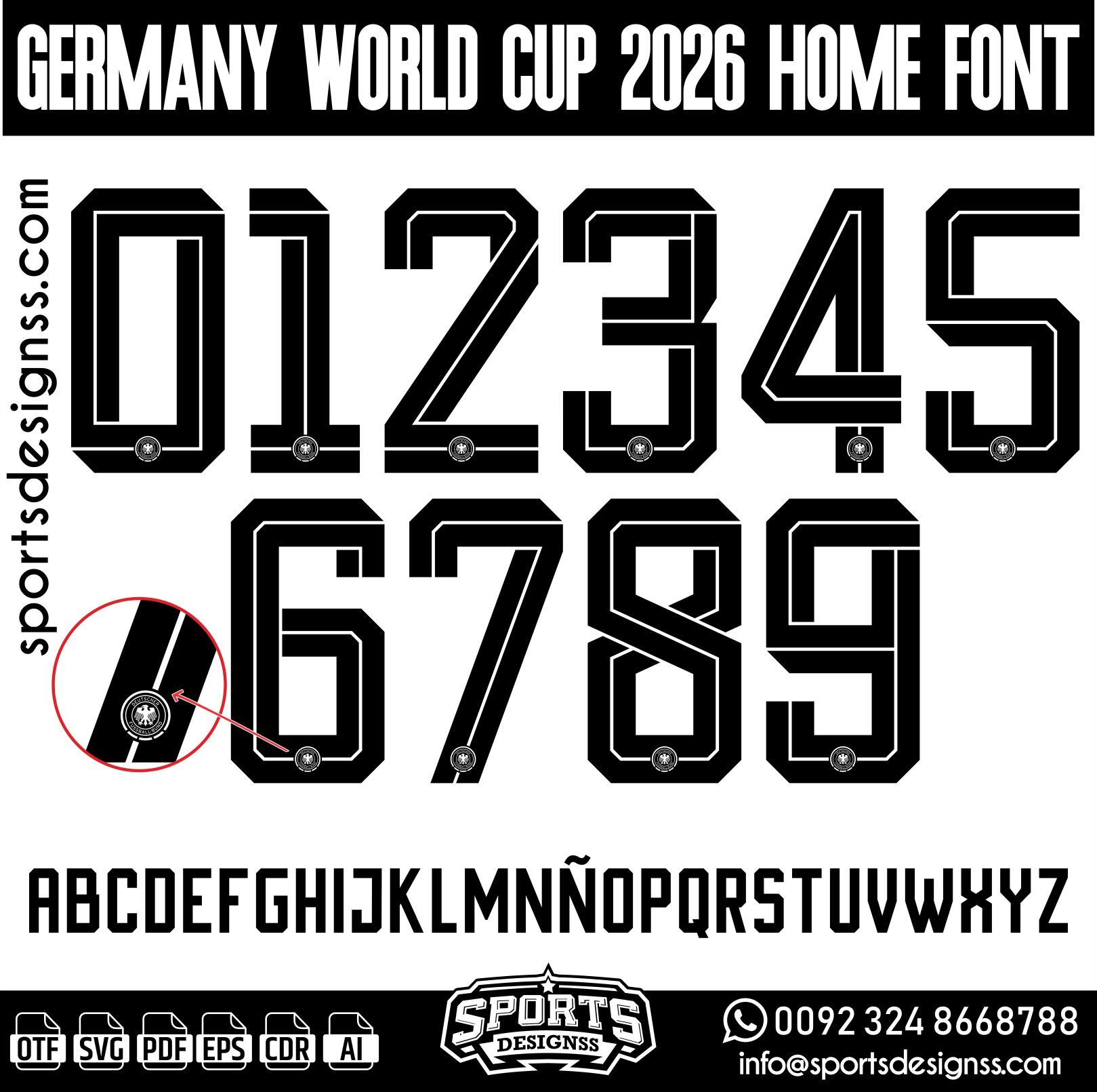
Description GERMANY WORLD CUP 2026 HOME FONT by Sports Designss _Football Font Premium Football Jersey Font (OTF Download) Recreate authentic football jersey designs with the GERMANY WORLD CUP 2026 HOME FONT, built for realistic, match-ready sports visuals. Upgrade your designs with the GERMANY WORLD CUP 2026 HOME FONT, a premium football jersey font inspired by modern professional sports aesthetics. Designed for creators who want clean, authentic, and game-ready visuals, this font helps you produce high-quality football designs that actually look professional. What You Get: High-quality OTF font file (Ready to install) Clean and authentic football-style typography Works with Photoshop, Illustrator, CorelDRAW & more Perfect For: Football / Soccer jersey designs Team kits & sports branding Mockups & merchandise Social media posts & YouTube thumbnails Why This Font? Inspired by real football design trends Built for clarity, readability, and realism Gives your designs a professional, match-ready look Important Notes: Digital product only (no physical item) Instant download after purchase No refunds on digital items ⚡ Designed for creators who take sports design seriously.